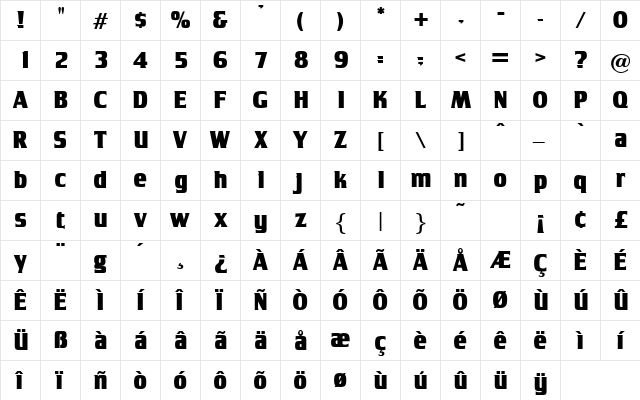
Tamago Regular
Design Context for Tamago Typeface
Tamago offers clean, dependable letterforms without strong stylistic allegiance, making it a practical choice for designers who need flexibility.